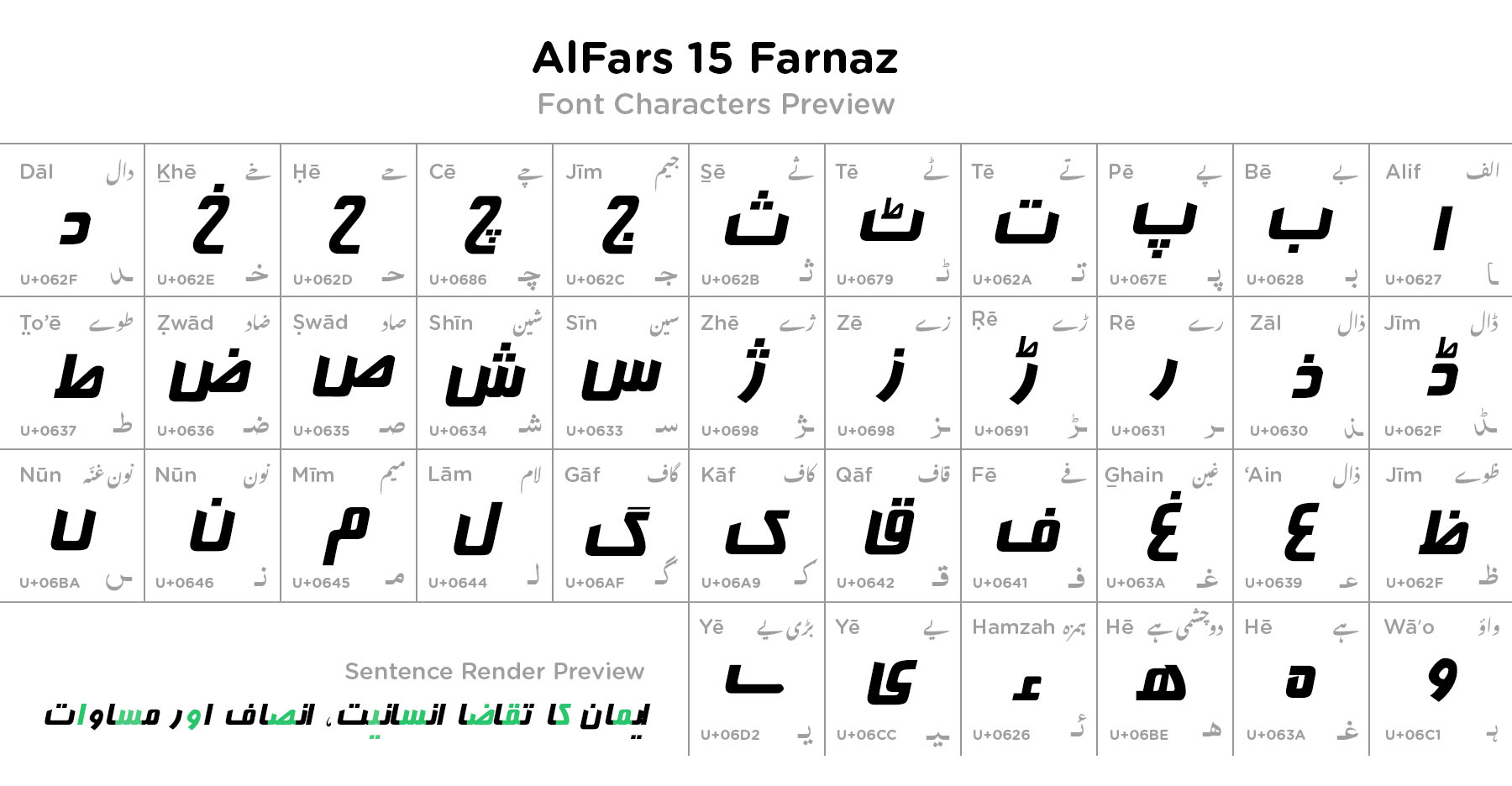
AlFars 15 Farnaz is a TrueType Urdu font designed by Syed Irtiza Hassan Rizvi and licensed on 5th February, 2009. The font is bold and seems little italic, its letters are filled with rounded curves and sharp edges. It is easy to read and has an elegant design making it perfect for emphasized texts like headings, banners, and headlines in newspapers and magazines. Moreover, it fits perfectly in rectangular shapes and can be a great choice for print design, social media designs, headings and Urdu taglines. If you are looking for an Arabic font that is both stylish and functional, AlFars 15 Farnaz is a great option. It has a glyph count of 334 and a charset comprising 219 letters and symbols. It is compatible with the latest Unicode blocks including Arabic, Basic Latin, Geometric Shapes Arabic Presentation Forms-A, Arabic Presentation Forms-B, and more. Thus, making it a versatile font for various purposes.